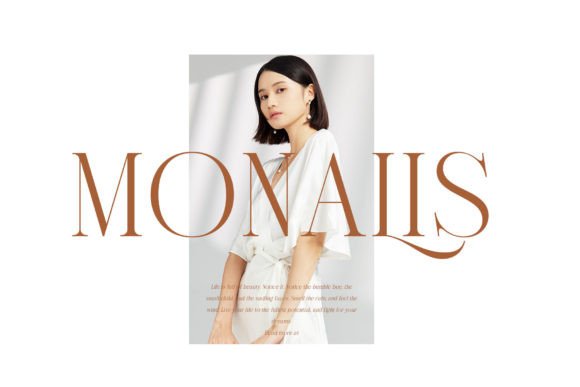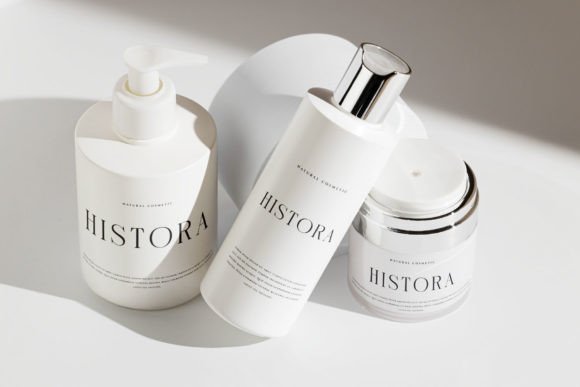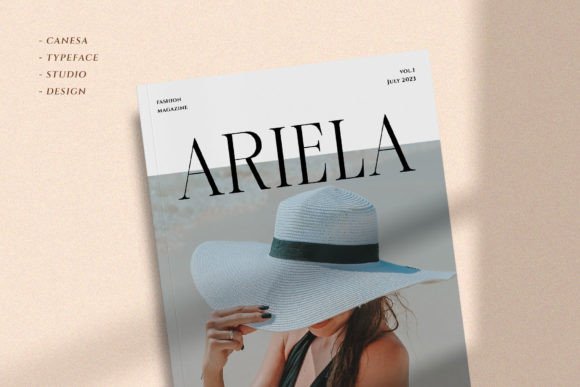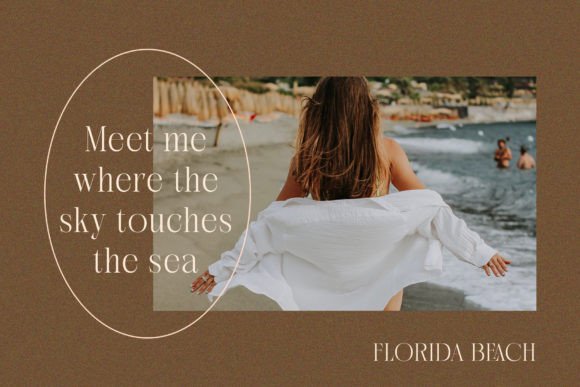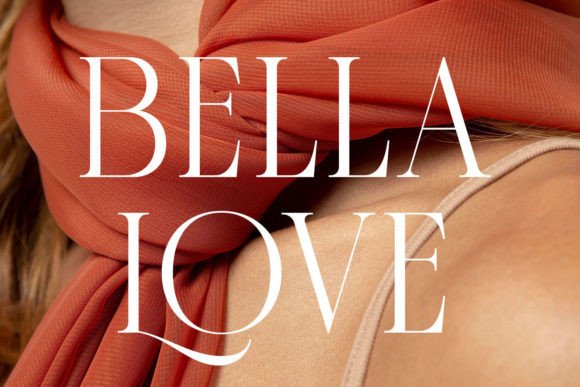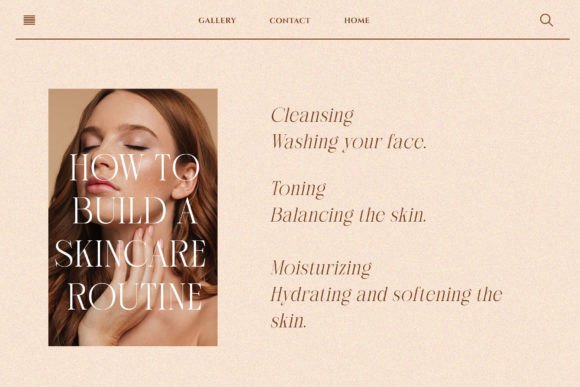
Introducing Canesa Font: Elevate Your Designs with Elegance
Are you a designer or crafter looking for a font that exudes sophistication and refinement? Look no further than Canesa, an elegant serif font designed to add a touch of class to your projects. With its delicate yet balanced look, Canesa is the perfect choice for those seeking a font that’s neither too thin nor too thick.
The Story Behind Canesa
Canesa was crafted with the goal of creating a font that’s both beautiful and versatile. Its designer aimed to strike a perfect balance between elegance and legibility, making it suitable for a wide range of applications, from luxury branding to wedding stationery. Whether you’re working on a high-end fashion project or a sophisticated editorial piece, Canesa is sure to impress.
Key Features of Canesa Font
- Elegant Serif Design: Canesa boasts a classic serif design that’s both timeless and sophisticated.
- Delicate yet Balanced: The font’s delicate lines and balanced structure ensure that it’s easy to read and visually appealing.
- Varied Letterforms: Canesa features a range of letterforms that add visual interest to your text, making it perfect for titles, headings, and body copy.
- Legible and Readable: The font’s carefully crafted lettering ensures that it’s easy to read, even at smaller sizes.
Why Choose Canesa Font?
With so many fonts available, why choose Canesa? Here are just a few reasons why designers and crafters love this elegant serif font:
- Unique yet Versatile: Canesa’s distinctive design makes it stand out from more common fonts, while its versatility ensures that it can be used in a variety of contexts.
- High-End Aesthetic: Canesa’s luxurious look and feel make it perfect for high-end branding, advertising, and editorial projects.
Using Canesa Font in Your Projects
Canesa font is perfect for a wide range of design projects, including:
- Luxury Branding: Use Canesa to create sophisticated logos, business cards, and marketing materials that exude elegance and refinement.
- Wedding Stationery: Add a touch of class to your wedding invitations, menus, and other stationery with Canesa’s beautiful lettering.
- Editorial Design: Use Canesa to create stunning editorial pieces, such as magazines, newspapers, and books, that showcase your writing in style.
In conclusion, Canesa font is an elegant serif font that’s sure to elevate your designs and add a touch of sophistication to your projects. With its delicate yet balanced look, varied letterforms, and high-end aesthetic, Canesa is the perfect choice for designers and crafters seeking a refined and versatile font. Try Canesa today and discover the beauty it can bring to your work!